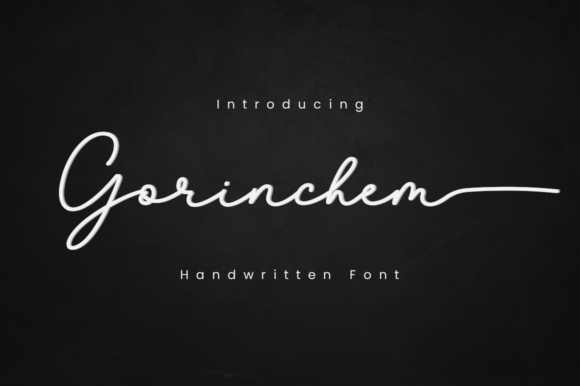
Welcome to the realm of Gorinchem, a script font that emanates elegance and charm. As an E-commerce SEO expert, I'm here to unveil the captivating allure of this font, beckoning you to embark on a typographic adventure.
Gorinchem is more than just a font; it's an artistic expression, a symphony of curves and strokes that dances across the page. Its graceful lines evoke a sense of timeless beauty, reminiscent of flowing calligraphy.
Immerse yourself in the versatility of Gorinchem. With its ability to effortlessly adapt to a myriad of designs, this font becomes an indispensable tool in your creative arsenal. Whether you're crafting exquisite wedding invitations, heartfelt greeting cards, or captivating social media posts, Gorinchem seamlessly blends with your artistic vision.
Experience the boundless possibilities of Gorinchem. Its meticulously crafted glyphs and swashes, accessible with PUA encoding, unlock a world of endless creativity. Unleash your imagination and let the characters dance across the page, creating captivating compositions that leave an indelible mark.
Step into the world of Gorinchem, where elegance and versatility converge. Embrace the beauty of handwritten fonts and elevate your designs to new heights. Seize this opportunity to own a treasure trove of typographic artistry.